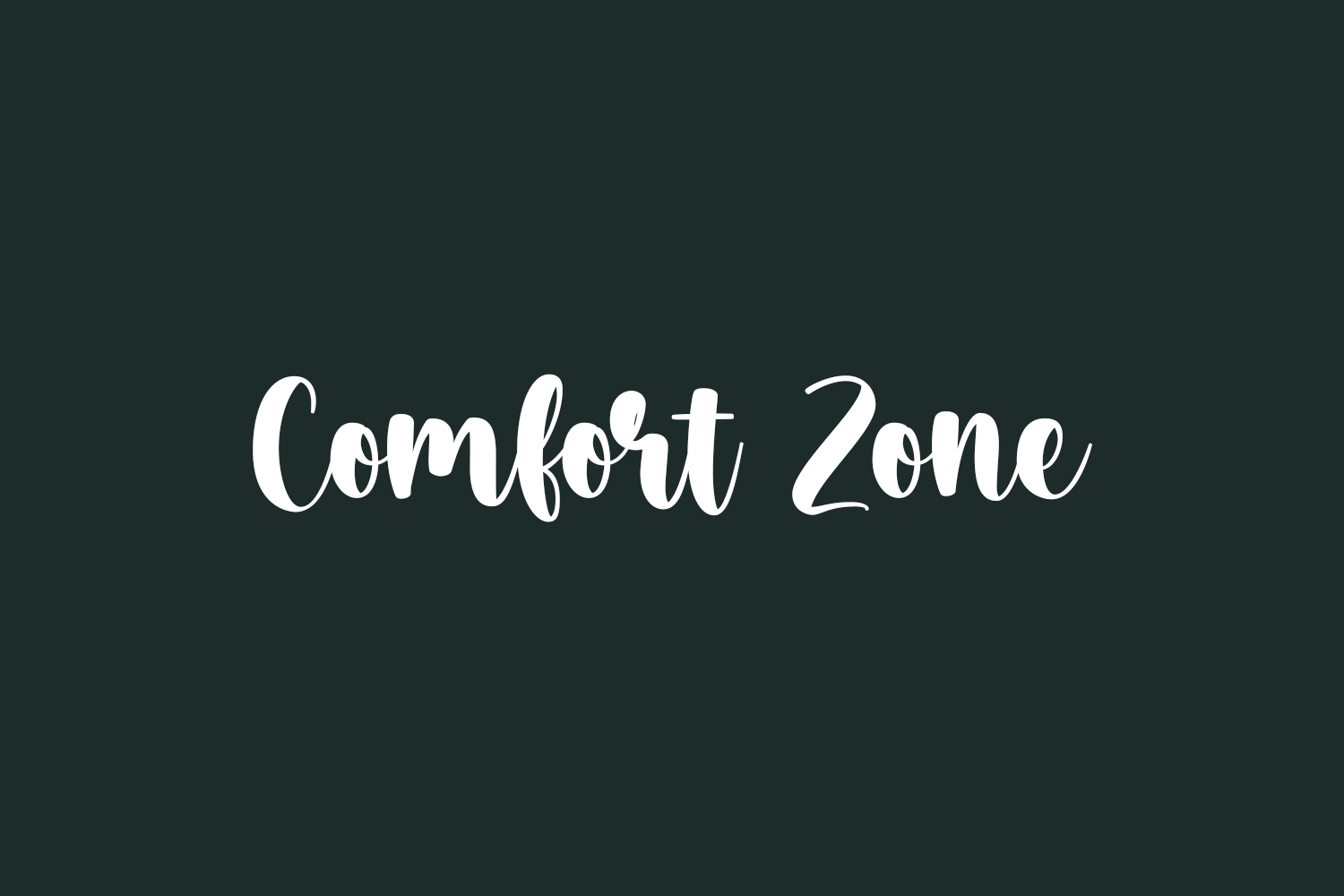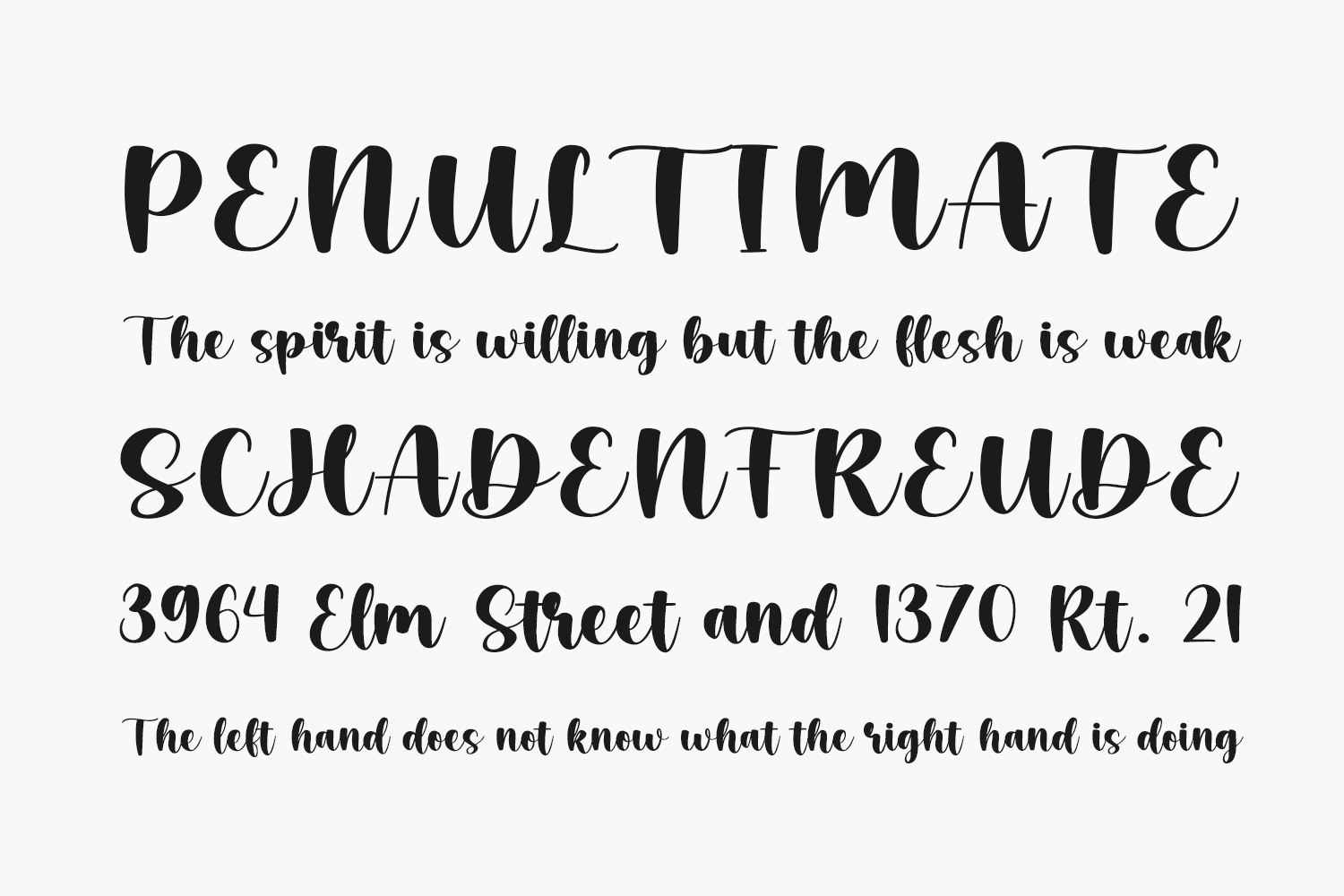
Comfort Zone Free Font Family is a magical handwritten font. It looks ravishing on invitations, thank you cards, quotes, greeting cards, logos, business cards and every other design which needs a customized touch.
Designed by Nirmala Creative
Comfort Zone Regular The quick brown fox jumps over the lazy dog
Comfort Zone Inline The quick brown fox jumps over the lazy dog